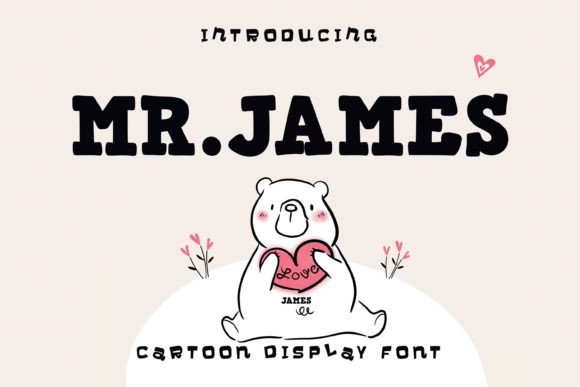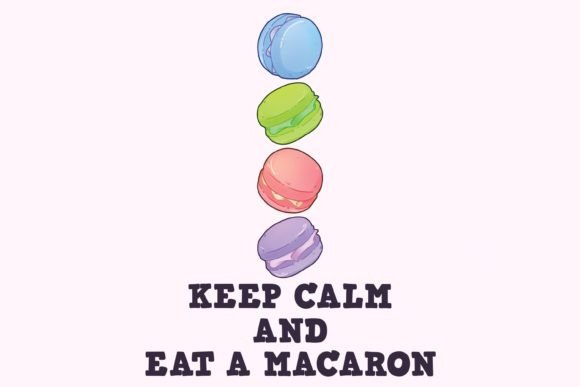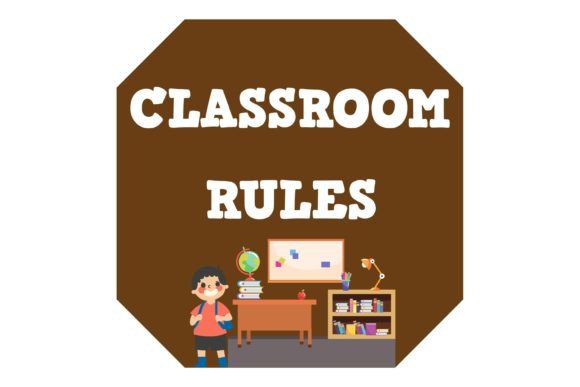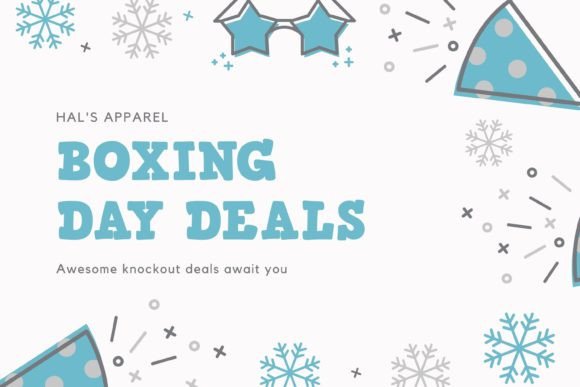
Mr.james Font
About the Mr.james Font
Meet Mr.james Font, a stunning font that brings a touch of elegance and professionalism to any design. Mr.James is a serif cartoon display font. It is easy to read, and perfect for kid artworks. It looks good on poster designs, stickers, t-shirts, or any school-related projects.
Mr.James’s playful, friendly personality makes it ideal for children’s books, branding for toys or educational products, and playful packaging designs. Its legibility also extends to short headlines or taglines in advertising aimed at a younger audience. However, avoid using it for lengthy text blocks or UI elements; its cartoonish nature may hinder readability in continuous text.
Pairing Mr.James effectively requires considering its informal character. A clean sans-serif like Open Sans or a geometric sans-serif like Futura could provide a sophisticated counterpoint, creating visual contrast while maintaining readability. For a more whimsical feel, a playful script font could also work well, but should be used sparingly as an accent.
The font’s inherently friendly energy makes it unsuitable for projects requiring sophistication or formality. Applications in luxury branding, corporate communications, or serious editorial design would clash with its cartoonish style.